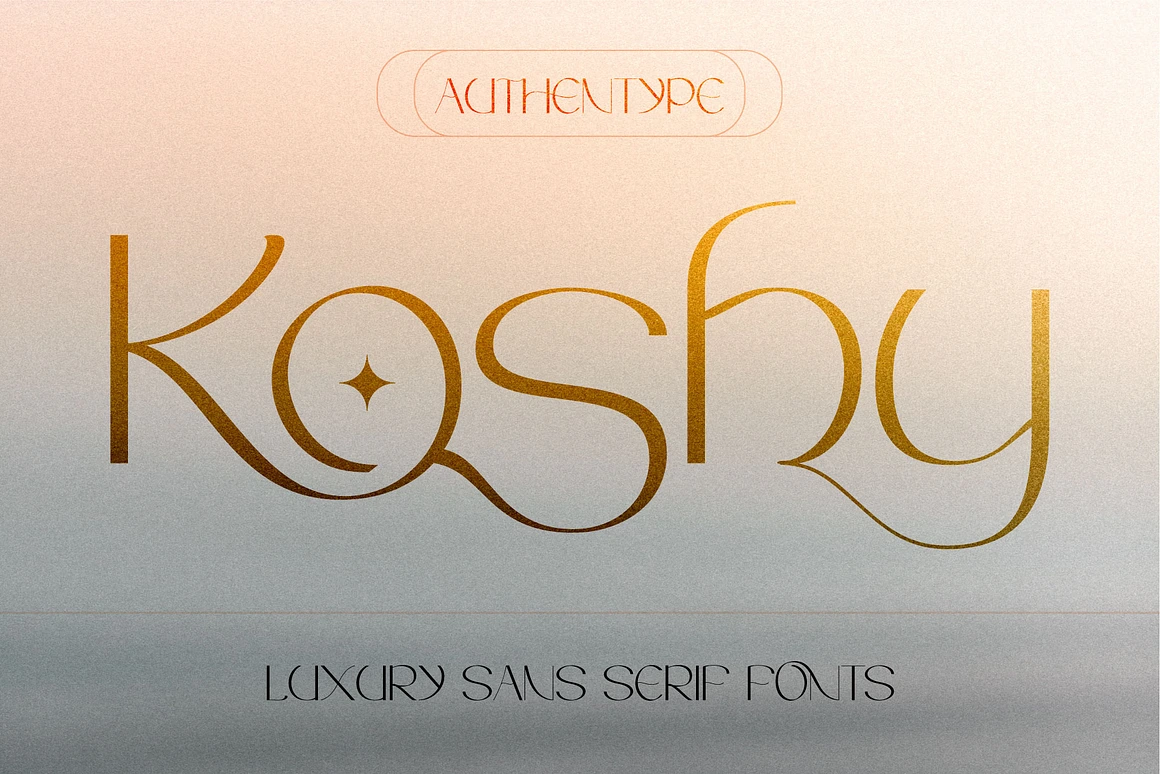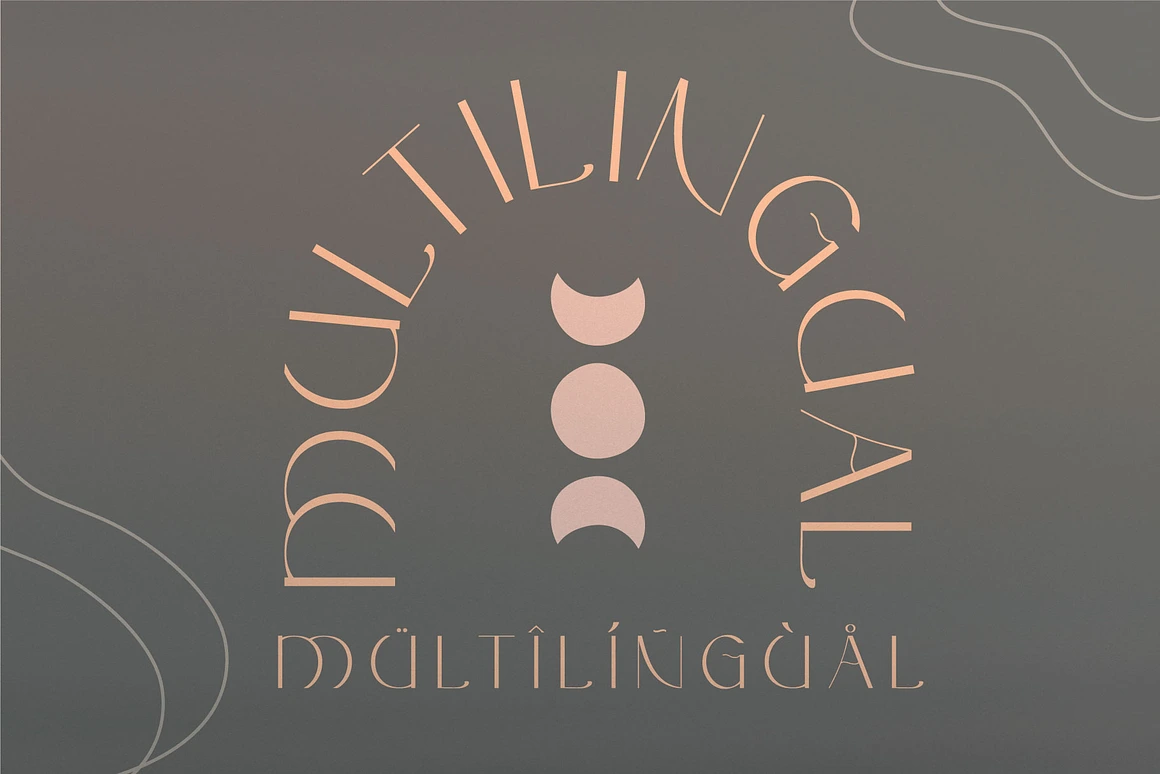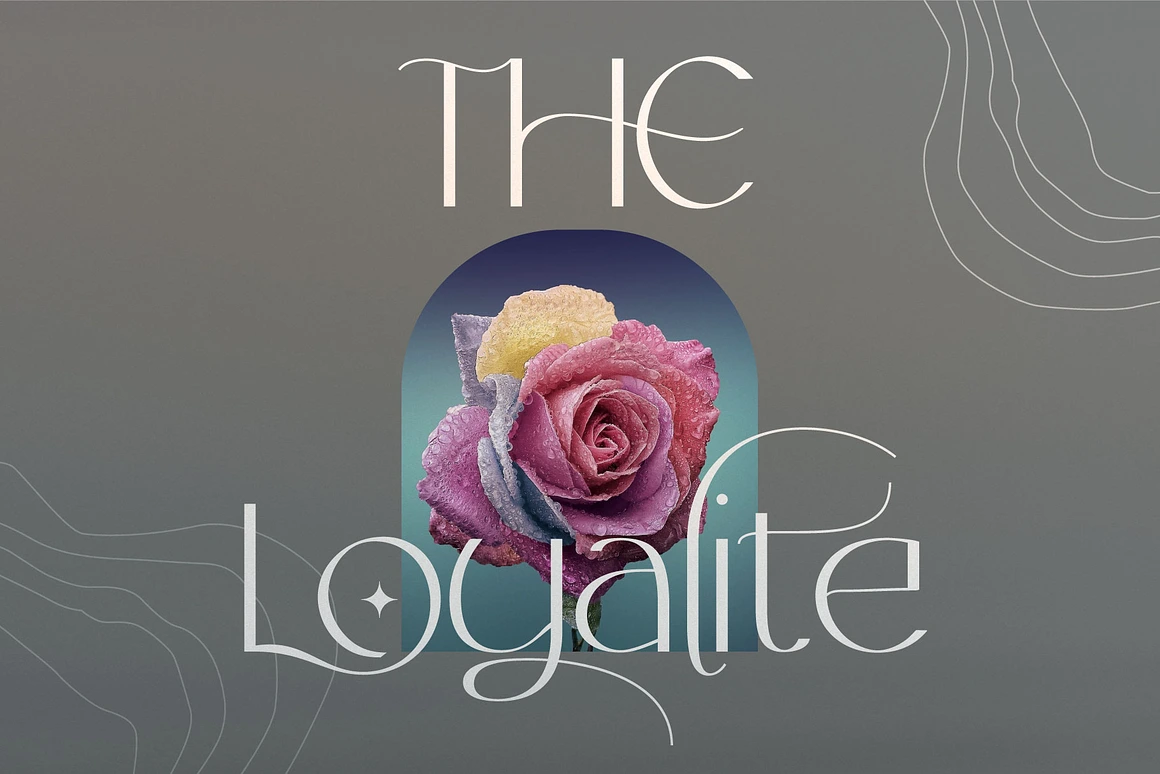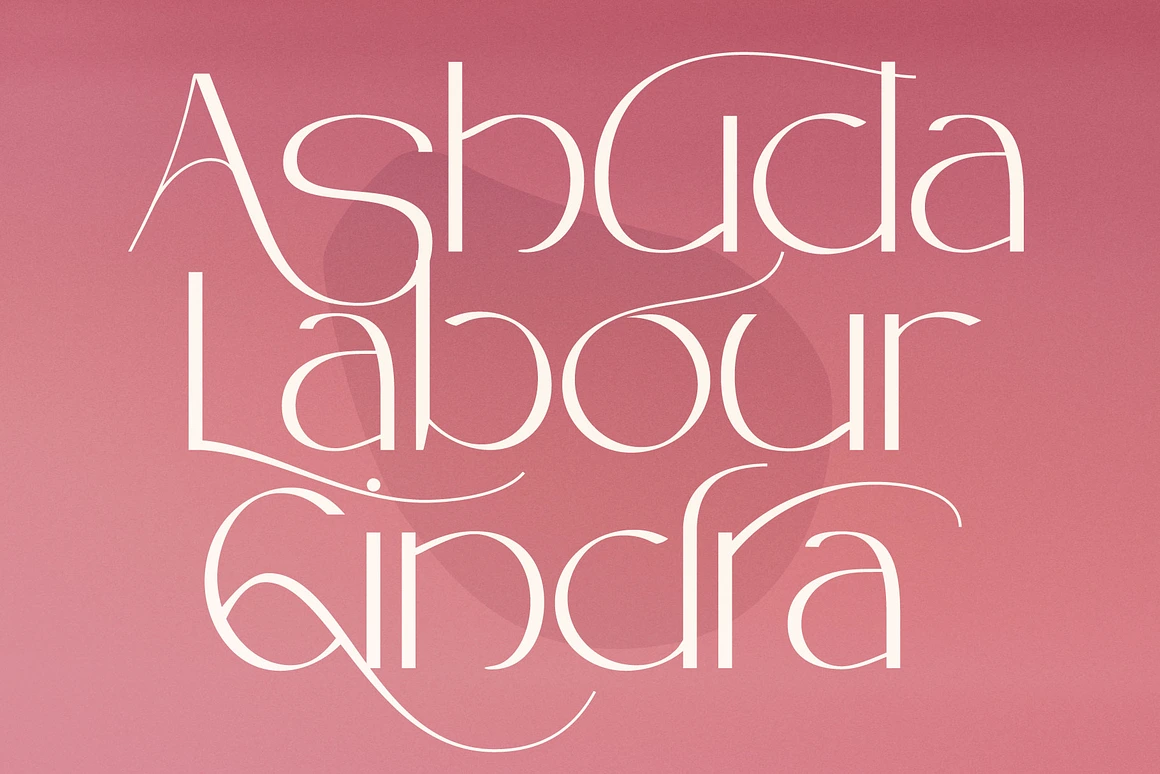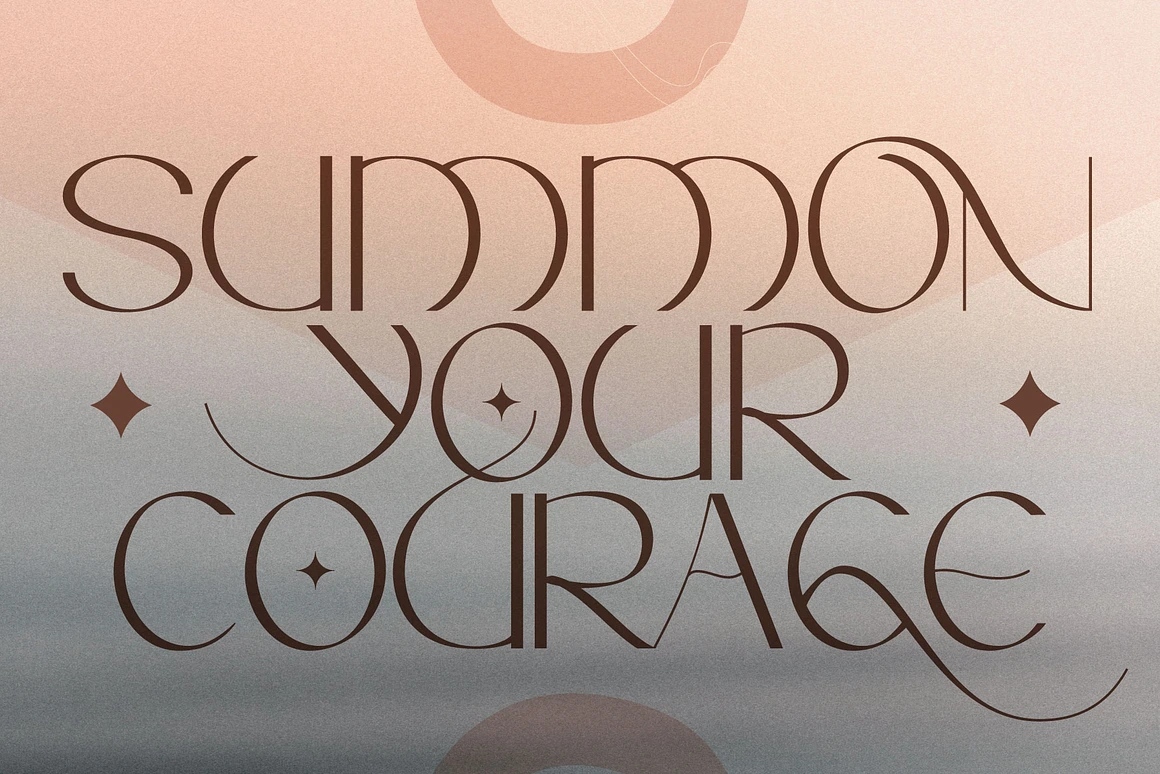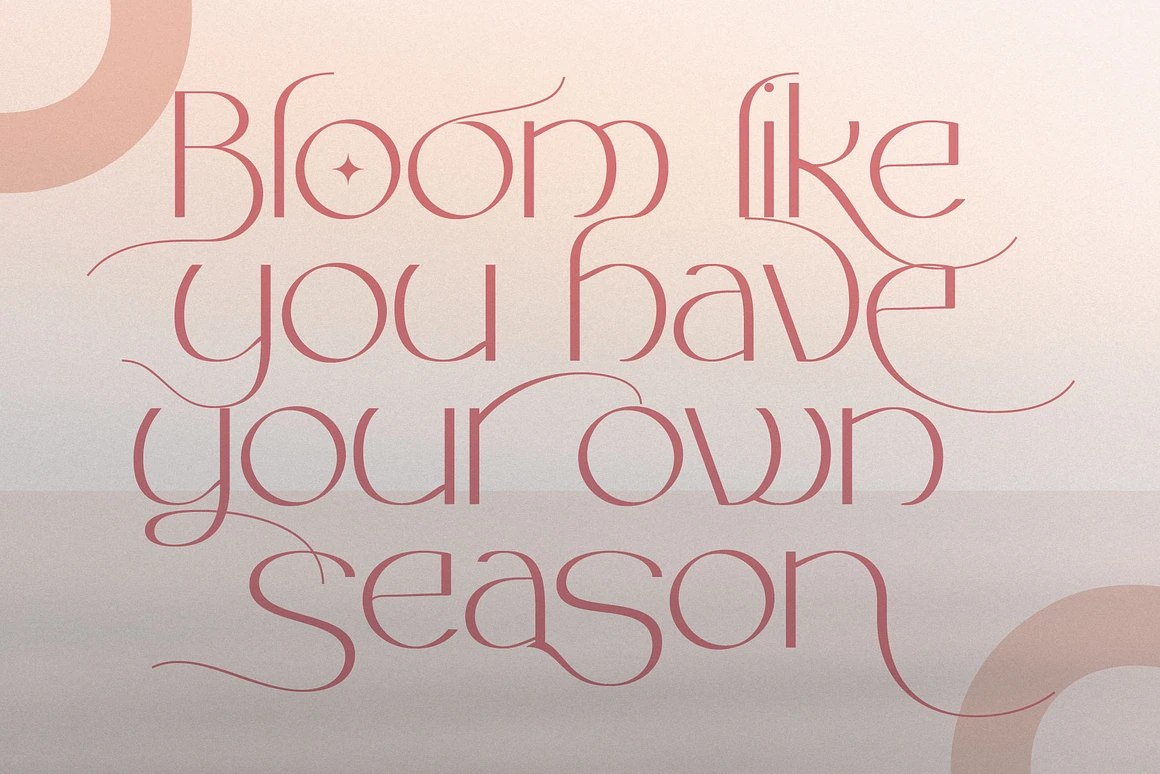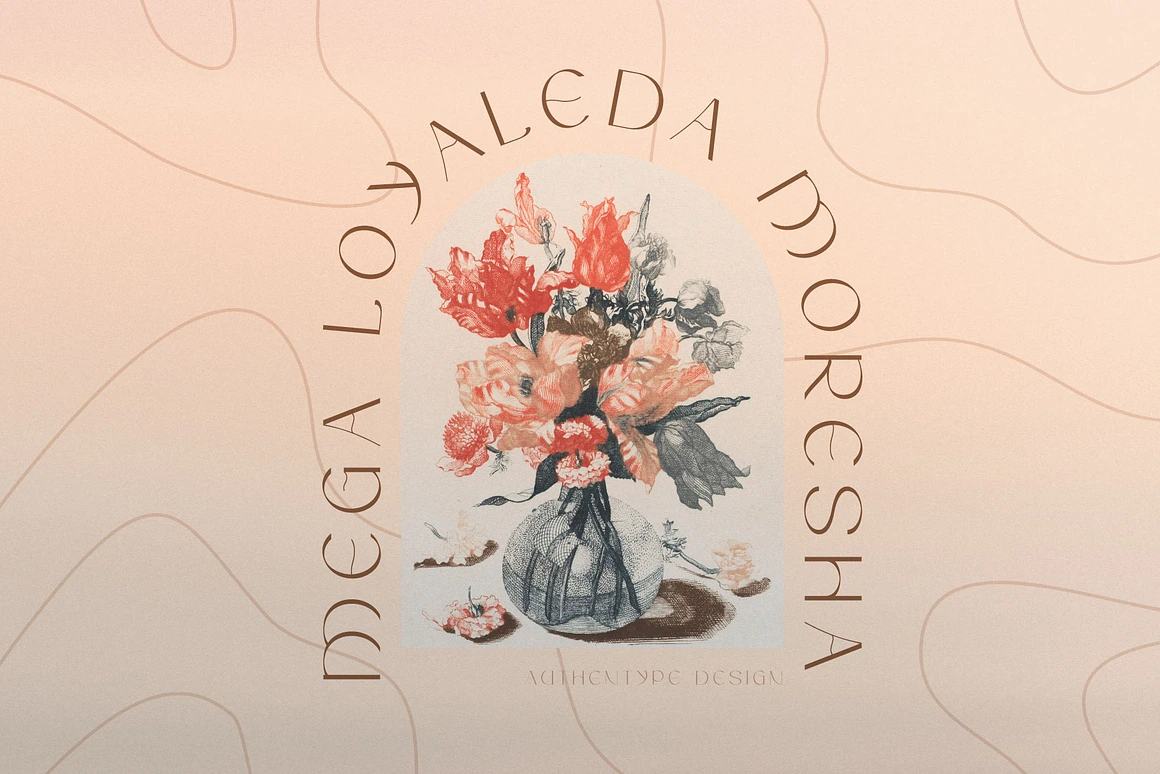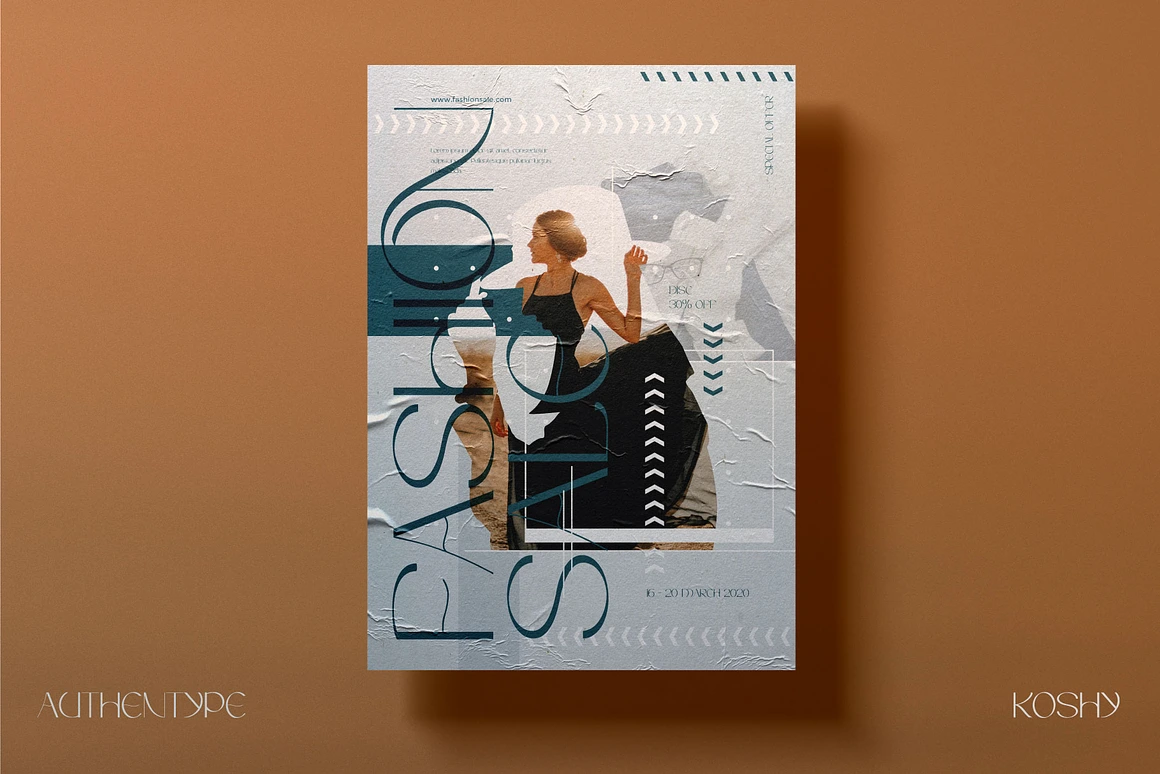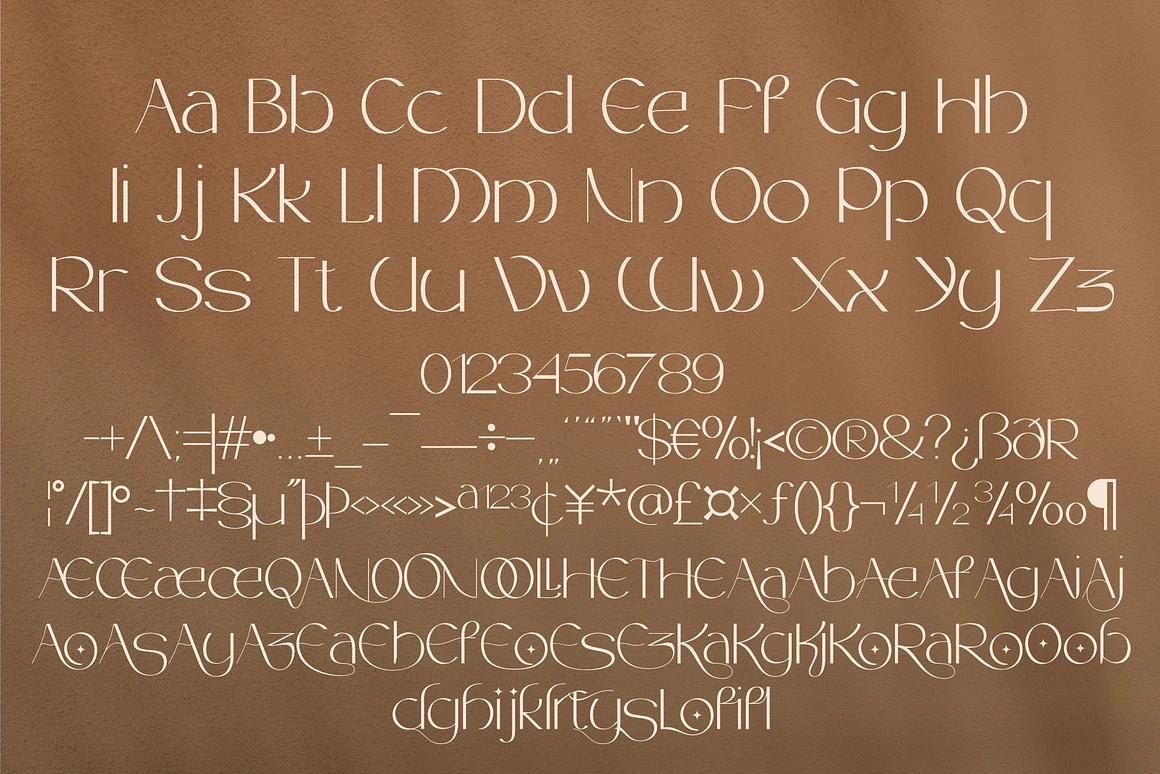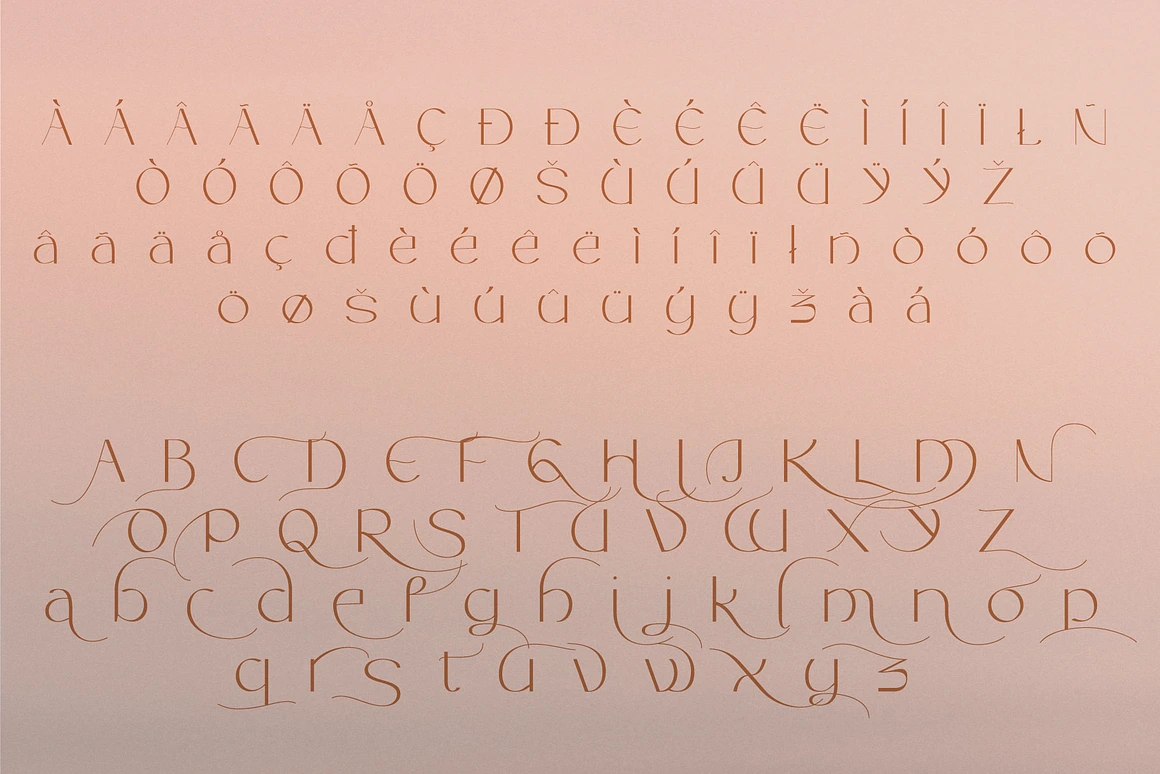
Koshy Luxury Sans Serif Font
Koshy
Koshy is a refined luxury sans serif typeface designed by AuthenType, combining timeless elegance with modern versatility. Its clean yet graceful letterforms make it an exceptional choice for sophisticated design projects such as high-end posters, fashion magazines, beauty branding, and upscale editorial layouts.
Luxury sans serif font with its subtle ligature glyphs and lowercase ending swashes, Koshy brings an extra touch of sophistication, allowing your typography to stand out with style and personality. The balance between classic proportions and contemporary minimalism ensures that this font adapts beautifully to a wide variety of creative concepts.
Character Set: Standard uppercase & lowercase glyphs
Extras: Numerals, extensive punctuation, and stylish ligatures
Special Details: Lowercase letters include elegant ending swashes
Language Support: Multilingual (ä ö ü Ä Ö Ü ß ¿ ¡)
Whether you’re designing a luxury brand identity, an editorial spread, or a minimalist yet elegant logo, Koshy luxury sans serif delivers the perfect balance of style, clarity, and sophistication.